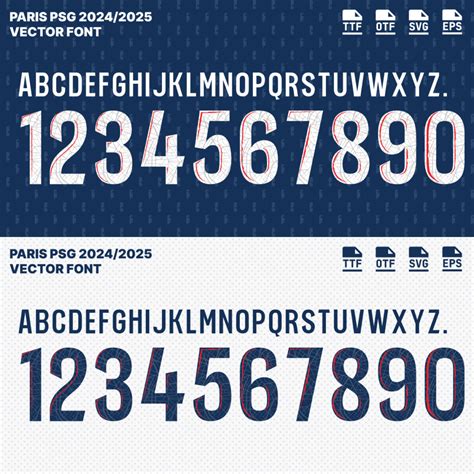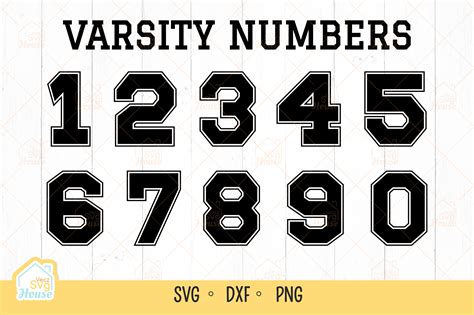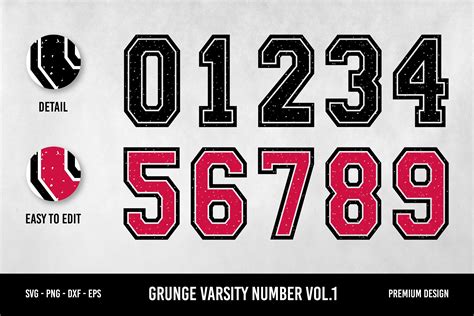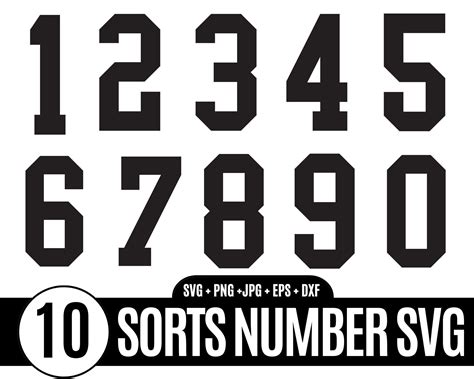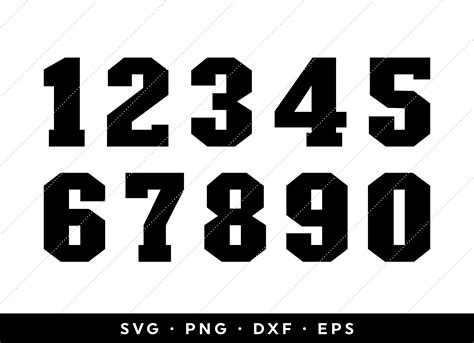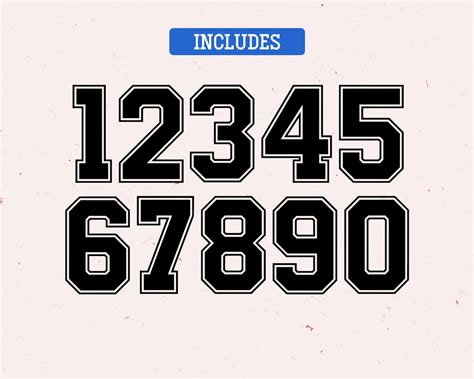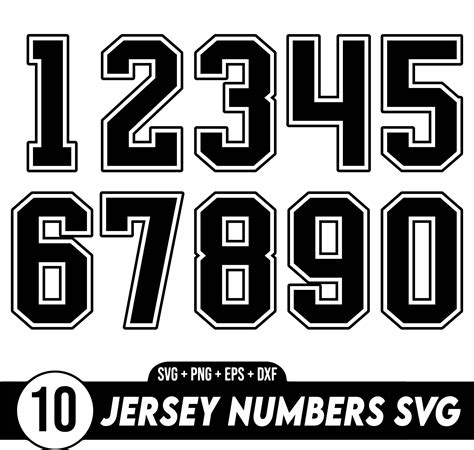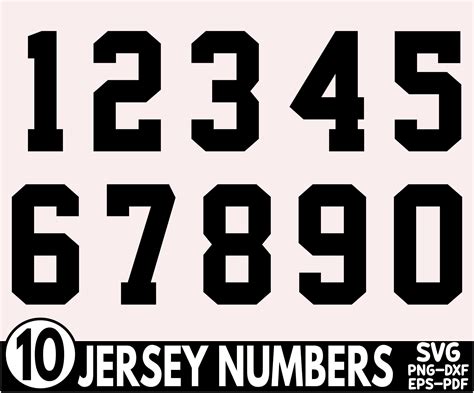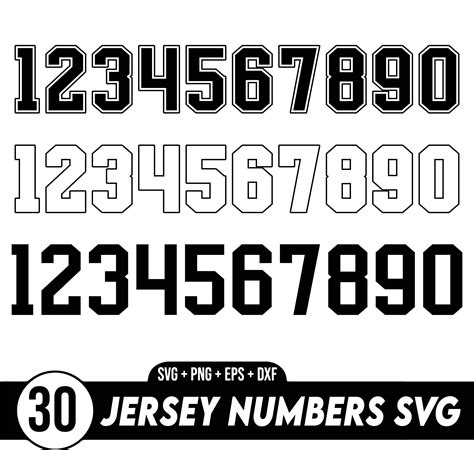
In the world of sports, particularly in basketball, the jersey number is more than just a way to identify players on the court. It's a symbol of individuality, a mark of achievement, and a piece of team history. One often overlooked aspect of jersey numbers is the jersey number font. The font used for jersey numbers can significantly impact the overall aesthetic and readability of the jersey. This post delves into the importance of jersey number fonts, the different types available, and how to choose the right one for your team.
Understanding Jersey Number Fonts
The jersey number font is a critical element of a basketball jersey. It not only helps fans and officials identify players but also contributes to the team's branding and visual identity. The right font can make a jersey stand out, while a poorly chosen font can detract from the overall design. Understanding the basics of jersey number fonts is the first step in making an informed decision.
Types of Jersey Number Fonts
There are several types of jersey number fonts, each with its unique characteristics. Here are some of the most common types:
- Block Fonts: These fonts are characterized by their thick, bold lines and clean edges. They are highly readable and are often used in professional sports jerseys.
- Script Fonts: These fonts have a more elegant and flowing appearance, resembling handwriting. They are less common in sports jerseys but can add a unique touch.
- Serif Fonts: These fonts have small lines or strokes attached to the ends of larger strokes in a letter or symbol. They are less common in sports jerseys but can add a classic touch.
- Sans-Serif Fonts: These fonts do not have the small lines or strokes at the ends of larger strokes. They are clean and modern, making them a popular choice for sports jerseys.
Choosing the Right Jersey Number Font
Selecting the right jersey number font involves considering several factors. Here are some key points to keep in mind:
- Readability: The primary function of a jersey number is to be easily readable from a distance. Choose a font that is clear and legible, even from the stands.
- Team Branding: The font should align with the team's overall branding and visual identity. Consistency in design helps reinforce the team's image.
- Aesthetics: The font should complement the jersey design and color scheme. A well-chosen font can enhance the overall look of the jersey.
- Durability: Consider the durability of the font when printed on the jersey. Some fonts may wear out faster than others, especially with frequent washing and use.
Here is a table that summarizes the key points to consider when choosing a jersey number font:
| Factor | Considerations |
|---|---|
| Readability | Clear and legible from a distance |
| Team Branding | Aligns with team's visual identity |
| Aesthetics | Complements jersey design and color scheme |
| Durability | Resistant to wear and tear |
Customizing Jersey Number Fonts
For teams looking to add a personal touch, customizing the jersey number font is an option. Custom fonts can be designed to reflect the team's unique identity and stand out from the competition. Here are some steps to customize your jersey number font:
- Design the Font: Work with a graphic designer to create a custom font that aligns with your team's branding. Consider the team's colors, logo, and overall aesthetic.
- Test for Readability: Ensure the custom font is readable from a distance. Conduct tests with different sizes and colors to find the optimal design.
- Apply the Font: Once the design is finalized, apply the custom font to the jerseys. Make sure the printing process is of high quality to maintain the font's clarity and durability.
📝 Note: Customizing jersey number fonts can be more expensive and time-consuming than using pre-designed fonts. Ensure you have the budget and resources to complete the process successfully.
Popular Jersey Number Fonts in Basketball
Several fonts have become popular choices for basketball jerseys due to their readability and aesthetic appeal. Here are some of the most commonly used fonts:
- Futura: A classic sans-serif font known for its clean lines and modern look. It is widely used in sports jerseys for its readability.
- Helvetica: Another popular sans-serif font, Helvetica is known for its simplicity and versatility. It is a common choice for professional sports teams.
- Arial: A widely used sans-serif font, Arial is known for its clarity and legibility. It is a reliable choice for sports jerseys.
- Impact: A bold, block font that stands out on jerseys. It is often used for its high visibility and impactful appearance.
These fonts are just a few examples of the many options available. The choice of font ultimately depends on the team's specific needs and preferences.
The Impact of Jersey Number Fonts on Team Identity
The jersey number font plays a crucial role in shaping a team's identity. A well-chosen font can enhance the team's branding, making it more recognizable and memorable. Conversely, a poorly chosen font can detract from the team's image, making it less appealing to fans and sponsors.